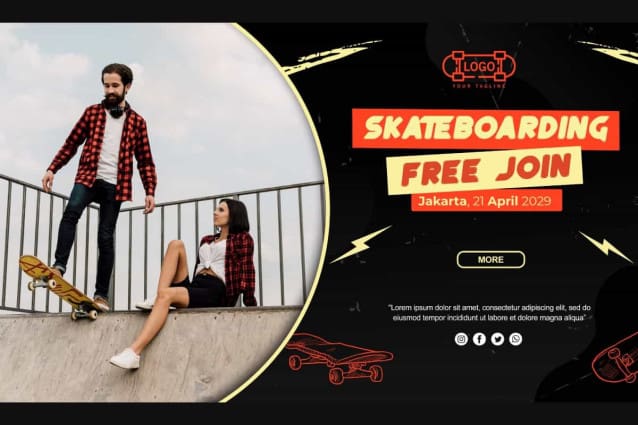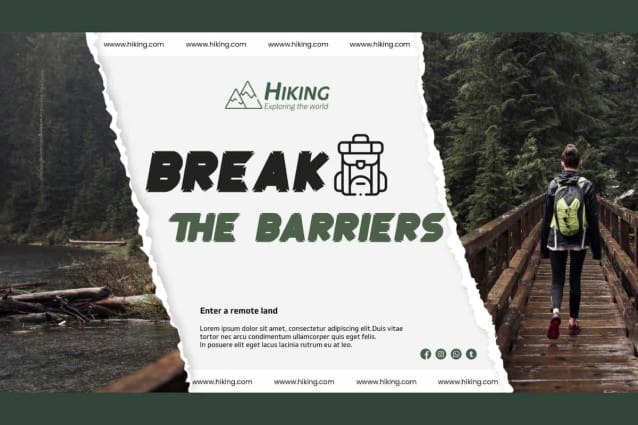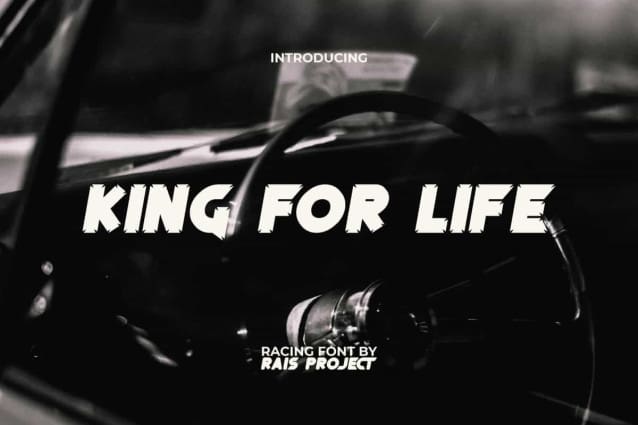
King For Life Font
King For Life Font is a sporty modern decorative font, created by RaisProject Studio. There are two small lines in each corner of the character to give an interesting impression and can steal attention. It will be good for any designs, such as advertisement, brand image, custom design, invitation, label, marketing material, poster, product packaging, quotes, signage, stationery, website page, and more!
King For Life Font includes a full set of ALL CAPS for Uppercase and Lowercase Letters, Numerals, and large range of Punctuation. This awesome font with a racing vibe will be suitable for various industries, such as automotive, cafeteria, event or festival, fashion, game, printing, publishing, sports, etc.